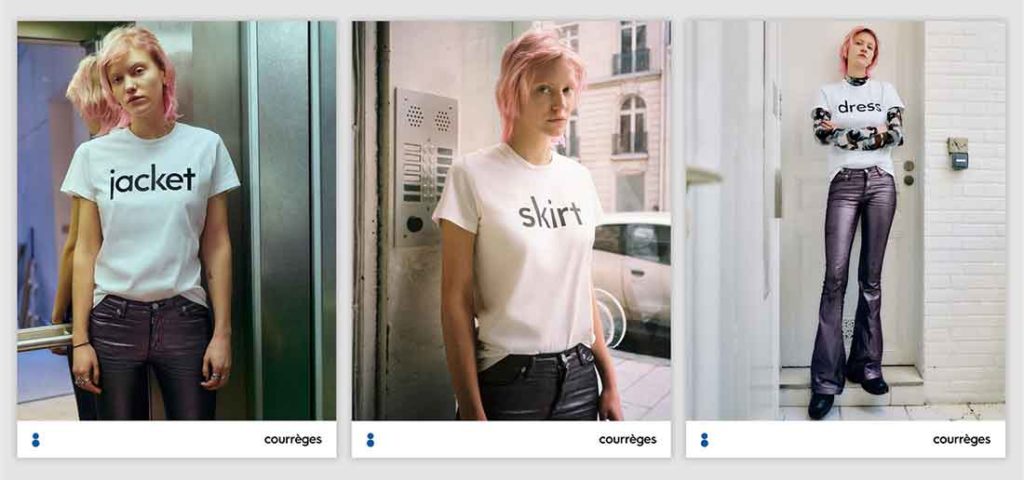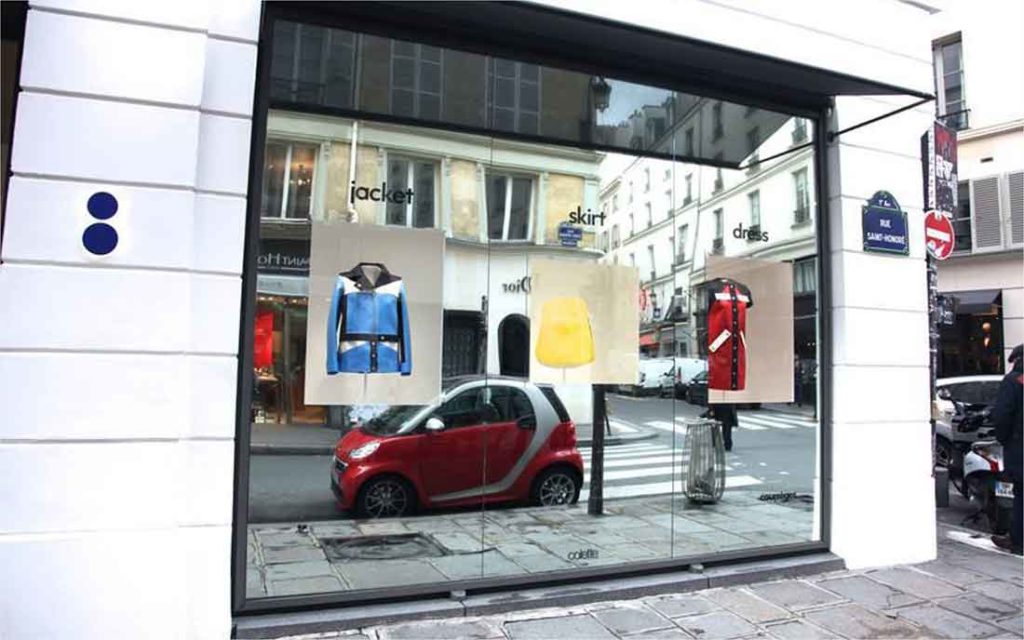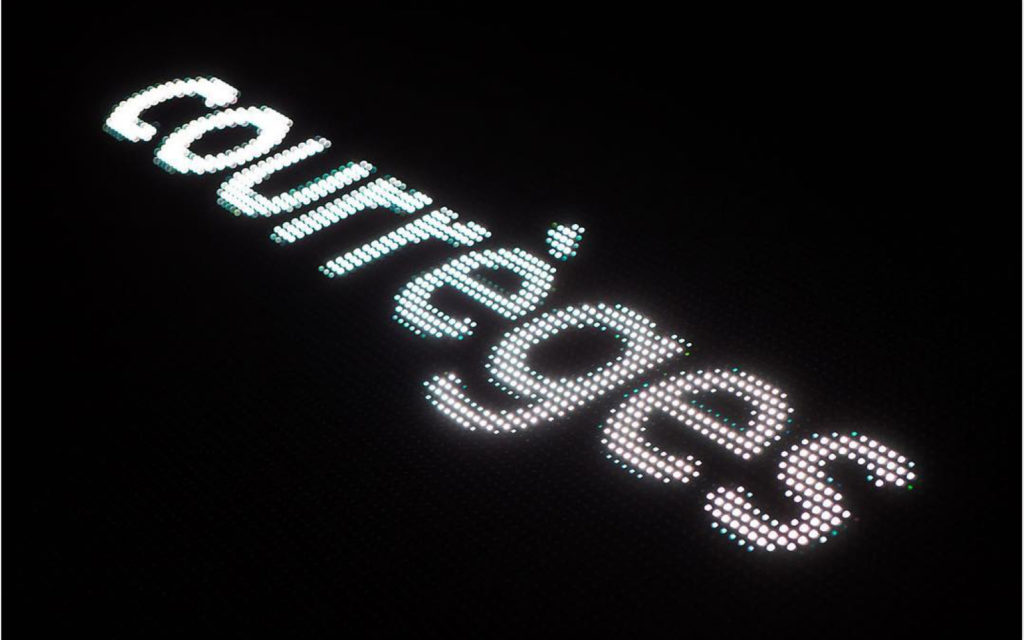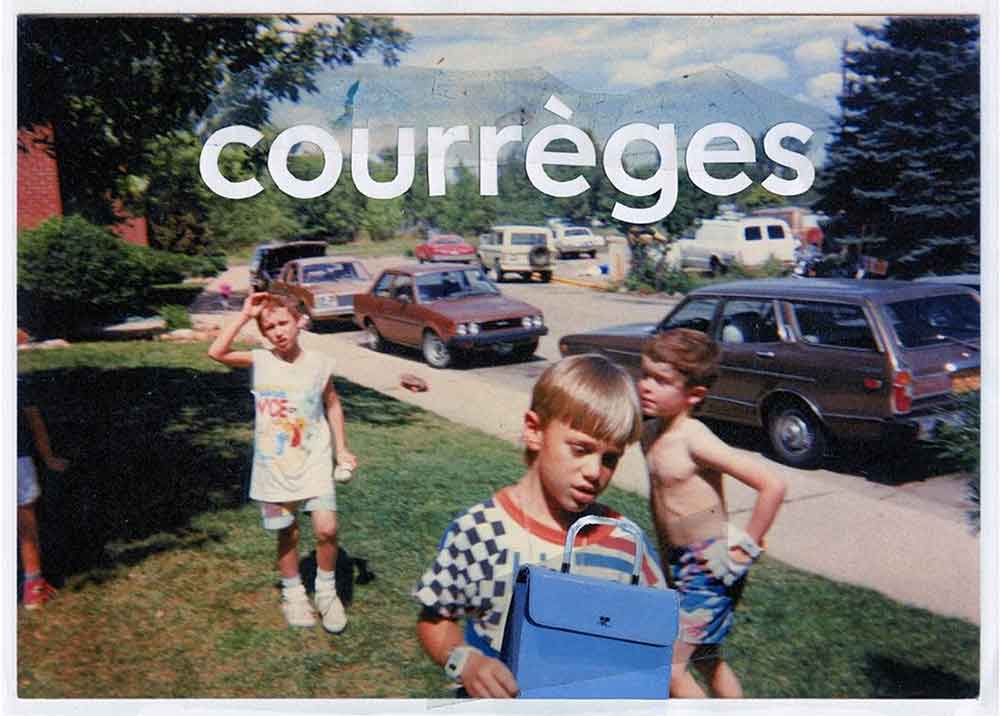
Name: Courrèges
Designer: Jean-Baptiste Levée
Foundry: Production Type
Release Date: March 2016
Back story: The space-age inspired clothing of designer André Courrèges helped define the look of ’60s go-go fashion. His miniskirts, trapeze shaped A-line dresses, and white vinyl ankle boots were about as far away from primly buttoned up ’50s attire as the earth is from Jupiter. The brand launched in 1961, and its visual identity remained unchanged until 2015, when designers Sébastien Meyer and Arnaud Vaillant revamped it and commissioned a bespoke typeface to convey a younger, more refined personality. According to Jean-Baptiste Talbourdet, Courrèges artistic director, the brand overhaul was inspired by normcore (now there’s a leap) and the typeface was envisioned as being “instantly readable worldwide, not ostentatious, just pure simplicity: a universal design” to match.
Why’s it called Courrèges? Come on now.
What are its distinguishing characteristics? The single-weight sans serif alphabet, with its nearly circular letterform components, owes a visual debt to early 20th century German geometric typefaces such as Futura and Erbar (its weight falls somewhere between the medium and bold versions of Futura). Courrèges is a modern-looking refresh of its historical roots, thanks to the relaxed, expansive feeling of its wider characters and proportionately shorter ascenders and descenders.
What should I use it for? Courrèges is exclusive to its parent company, whose designers are making use of their new typeface across all media for communications, ready-to-wear collections and accessories, and in the brand’s boutiques.
Who’s it friends with? The Courrèges website does not pair it with any other font, allowing it to be the sole voice of the brand, which feels right. But imagine it teamed with Domaine Display to dress it up just a bit, like an elegant lapel pin adding some flair to a severely cut suit.